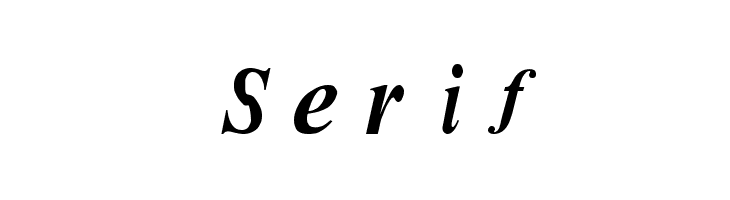
A bold, dramatic Blackletter font with intricate, ornate letterforms.
A modern, geometric font with rounded edges and consistent stroke widths.
A bold, industrial-style font with a 3D effect and rivet details.
A dynamic and elegant cursive script font with a modern yet classic appeal.
A bold, angular font with a modern, geometric style.
A classic serif font with elegant strokes and pronounced serifs.
A monospaced typewriter-style font with a modern twist.
A modern font with high contrast and elegant, sharp lines.
A playful and flowing script font with elegant curves and continuous strokes.
An elegant, flowing script font with graceful curves and sophisticated flourishes.
A playful, dotted font with a hand-drawn, whimsical style.
A bold, dotted, and playful font with a hand-drawn style.
A playful, rounded font with bold, consistent strokes and a modern feel.
A playful, rounded font with smooth curves and consistent stroke width.
A clean and modern sans-serif font with balanced proportions and excellent readability.
A clean, modern sans-serif font with balanced spacing and consistent stroke width.
A modern, clean sans-serif font with uniform stroke width and excellent readability.
A lively, expressive script font with playful loops and swirls.
A sophisticated, elegant handwritten script with fluid, connected letters.
A whimsical, playful script font with flowing, interconnected letters.
A flowing, cursive font with an elegant and sophisticated style.
A cursive, handwritten font with elegant loops and swashes.
A playful, whimsical handwritten font with flowing, interconnected letterforms.
A playful, bold handwritten font with rounded, slightly irregular characters.
A lively, cursive script font with interconnected letters and a dynamic style.